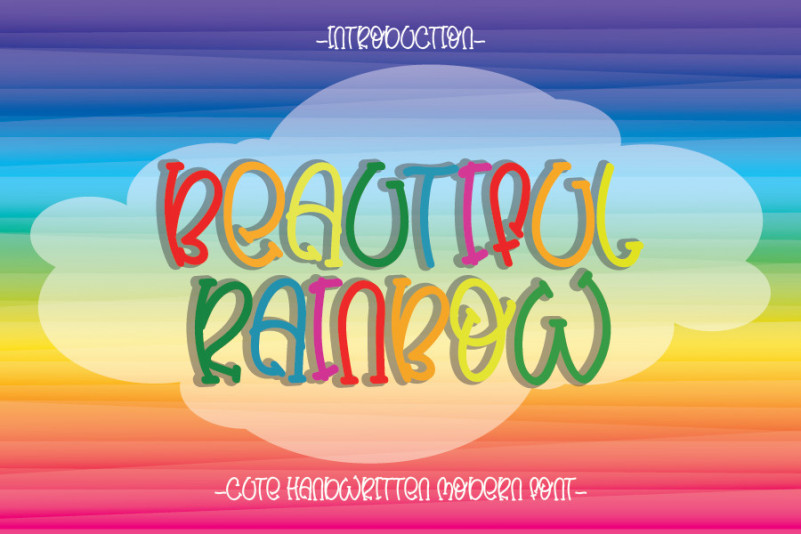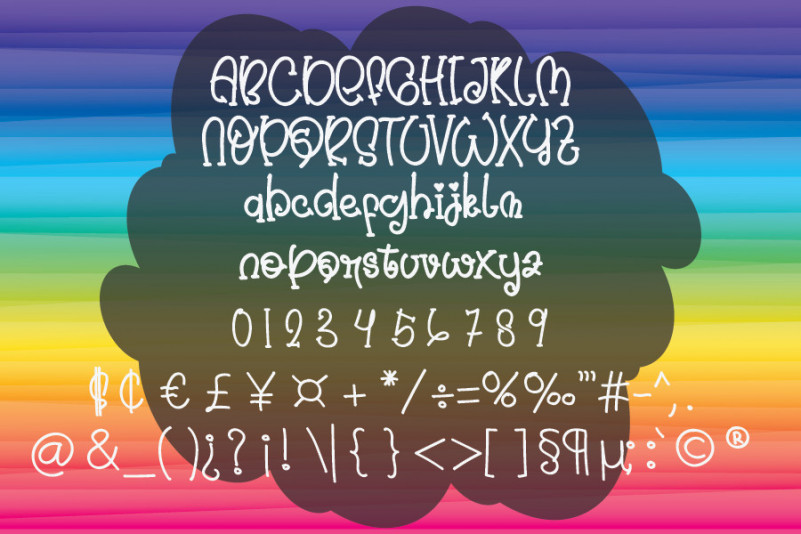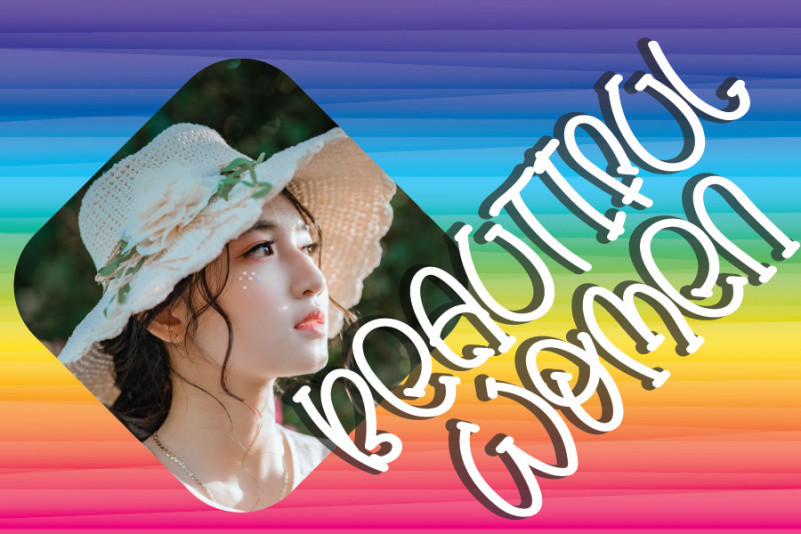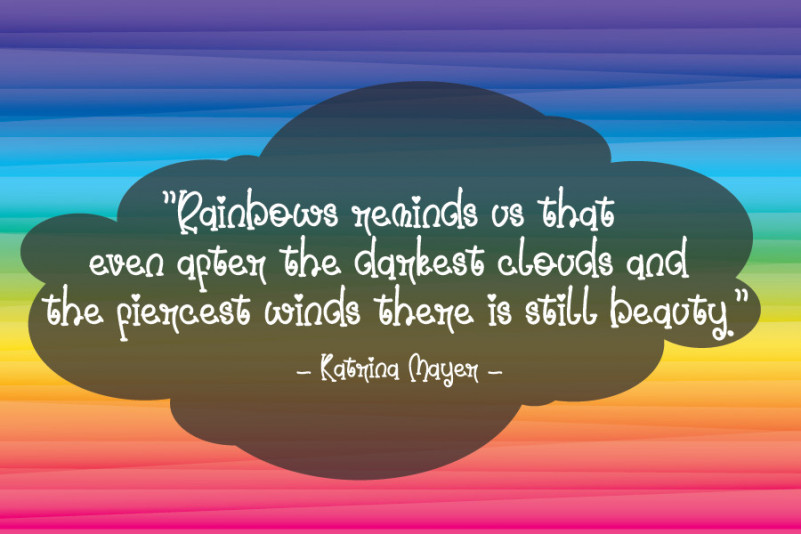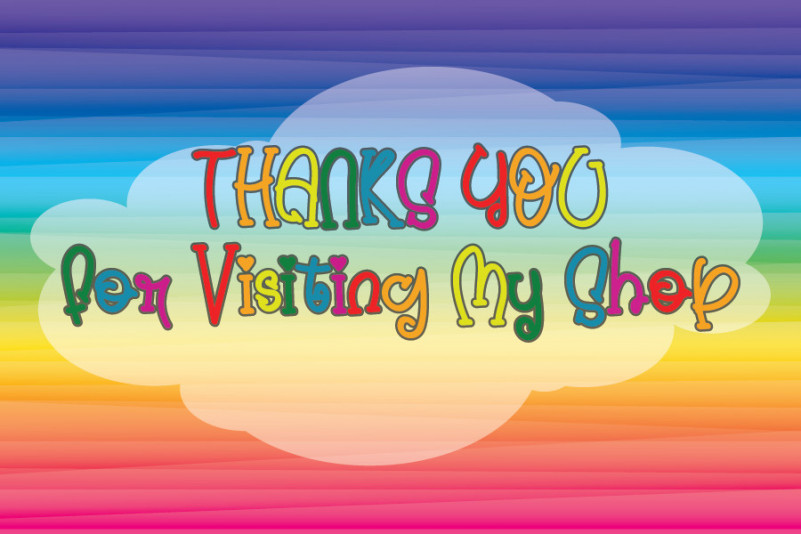
Beautiful Rainbow Font
Beautiful Rainbow Display Font
This is a sweet, all round and flexible handwritten font. Warm, quirky and jolly, this font will turn each of your project ideas into real works of art. Have fun with this beautiful font and explore its endless variations.